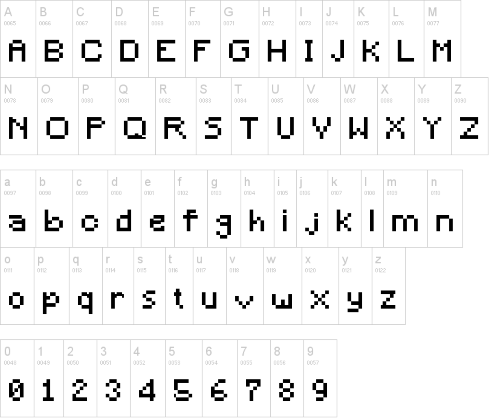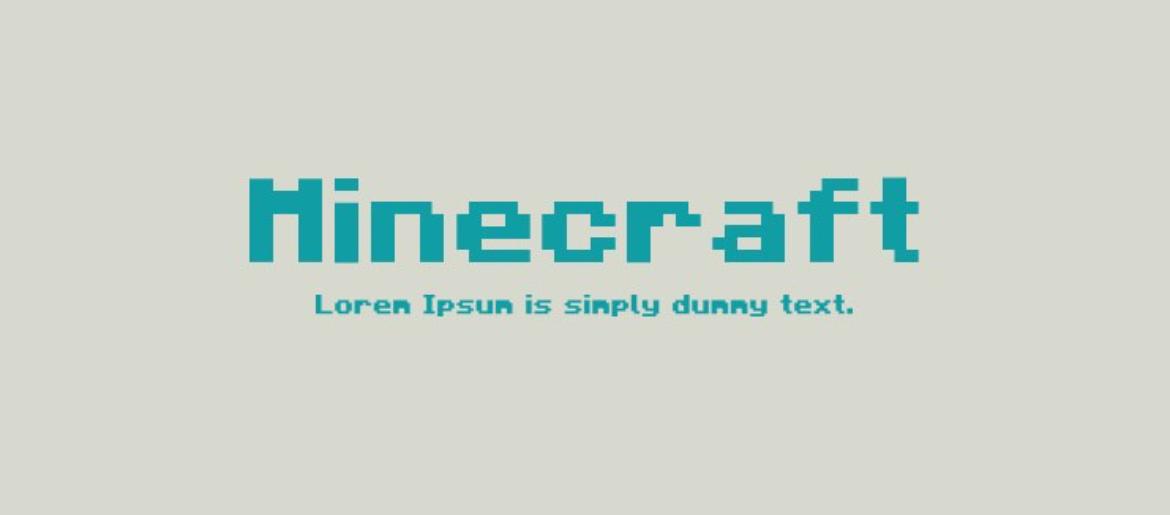
Minecraft Font
Minecraft Font is a blocky, pixel-style typeface inspired by the iconic voxel world of the Minecraft game. With its square letterforms and retro 8-bit feel, it’s perfect for gaming logos, posters, YouTube thumbnails, and digital projects. It delivers a bold, nostalgic, and instantly recognizable style.
➤ Font Name: Minecraft
➤ Designer: Craftron Gaming
➤ Style: Bitmap